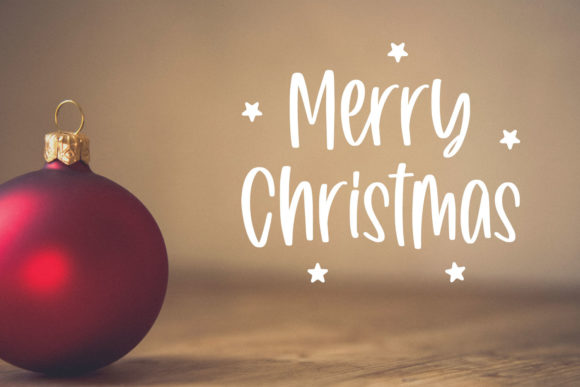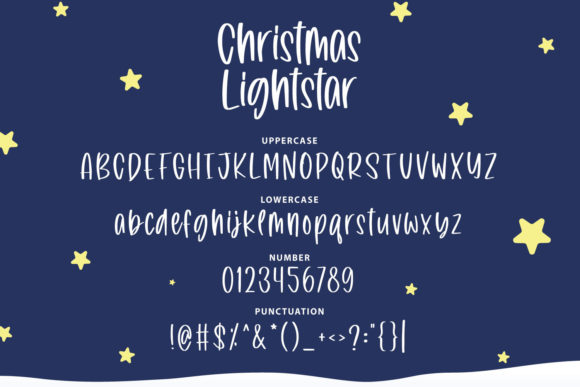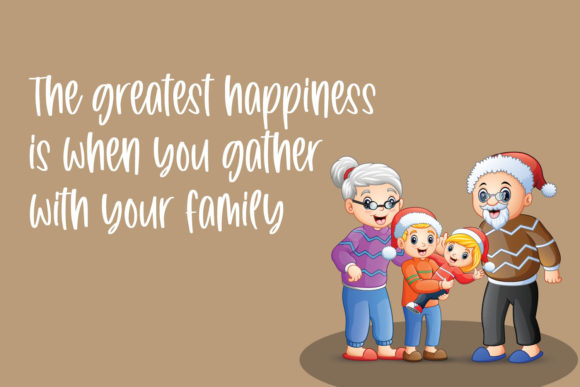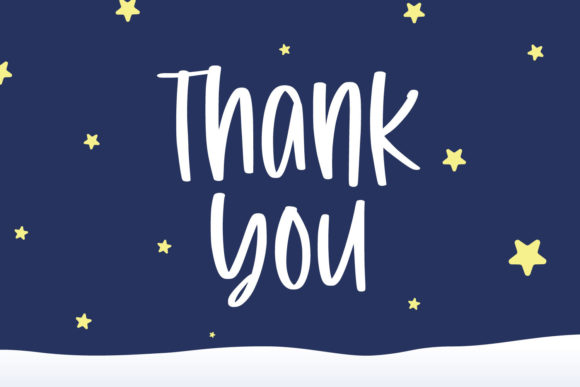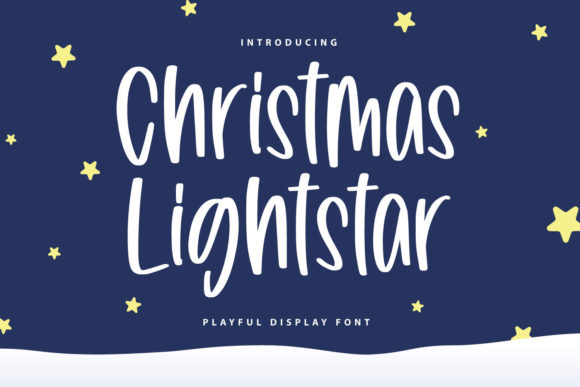
Introducing Christmas Lightstar Font: The Ultimate Holiday Elegance
As the festive season approaches, designers and crafters are on the lookout for the perfect typography to elevate their holiday-themed projects. Look no further than Christmas Lightstar Font, a chic and trendy script font that exudes confidence and versatility. With its stylish alternates and ligatures, this font is the perfect match for any project that requires a touch of holiday elegance.
What Makes Christmas Lightstar Font So Special?
Christmas Lightstar Font is a modern script font that boasts a unique and sophisticated style. Its elegant lines and curves make it perfect for a wide range of applications, from holiday cards and invitations to festive packaging and branding. The font’s confident and versatile nature ensures that it can be used in various contexts, from formal to informal, without losing its charm.
Key Features of Christmas Lightstar Font
- Stylish Alternates: Christmas Lightstar Font comes with a range of stylish alternates that allow you to add a personal touch to your designs. These alternates can be used to create unique and eye-catching headings, titles, and text.
- Ligatures: The font also features ligatures, which are special characters that combine two or more letters to create a single, flowing unit. This feature adds a touch of sophistication and elegance to your text.
- Versatility: Christmas Lightstar Font is designed to be versatile, making it suitable for a wide range of projects, from digital designs to print materials.
Christmas Lightstar Font is an ideal choice for designers and crafters who want to add a touch of holiday magic to their projects. Whether you’re creating:
- Festive packaging and branding
- Seasonal crafts and DIY projects
- Digital designs, such as social media graphics and blog posts
This font is sure to impress. Its elegant and sophisticated style ensures that your designs will stand out from the crowd and leave a lasting impression.
Tips for Using Christmas Lightstar Font
To get the most out of Christmas Lightstar Font, here are a few tips:
- Experiment with Alternates: Try out different alternates to add a personal touch to your designs.
- Use Ligatures: Use ligatures to create flowing and elegant text.
- Mix and Match: Combine Christmas Lightstar Font with other fonts to create unique and eye-catching designs.
- Play with Colors: Experiment with different colors and textures to add depth and interest to your designs.
Christmas Lightstar Font is a chic and trendy script font that is perfect for designers and crafters who want to add a touch of holiday elegance to their projects. With its stylish alternates and ligatures, this font is sure to impress. Whether you’re creating holiday cards, festive packaging, or seasonal crafts, Christmas Lightstar Font is the ultimate choice for a sophisticated and confident look.